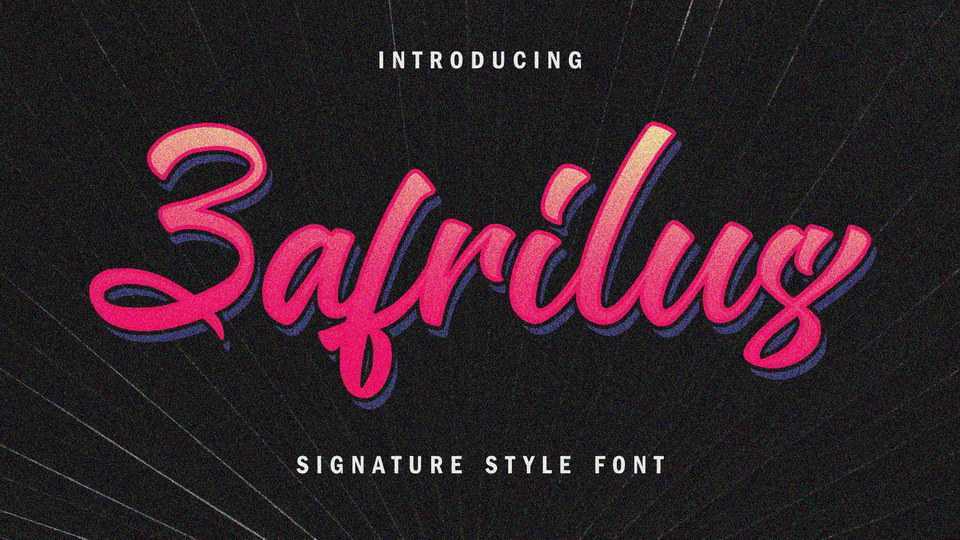
Download Zafrilus font, a modern calligraphy typeface inspired by retro style. Zafrilus allowing you to create hand lettering is an instant and a super handy set of bonus Swash.